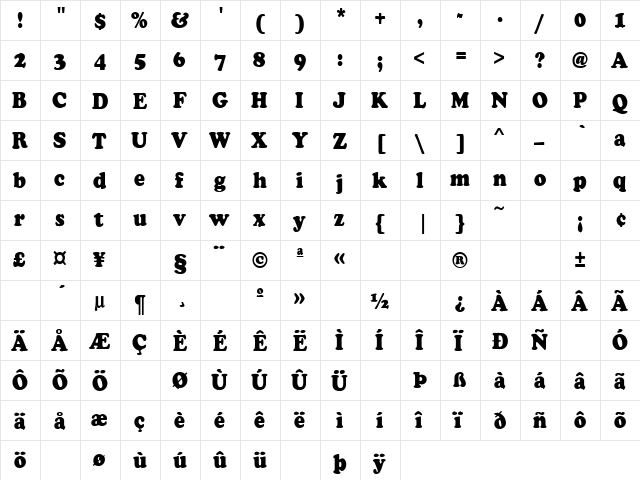
Poverty 5 Regular Font Preview
Poverty 5 Regular
Design Context for Poverty 5 Typeface
Poverty 5 takes a measured approach to typography — its balanced proportions and neutral character make it a reliable workhorse for both digital and print work.